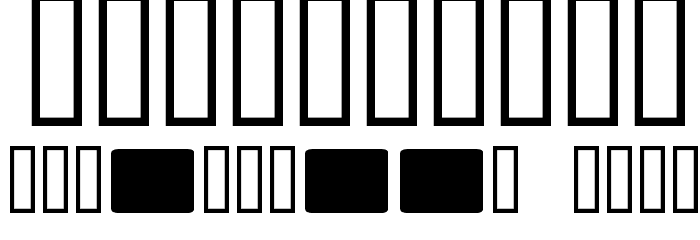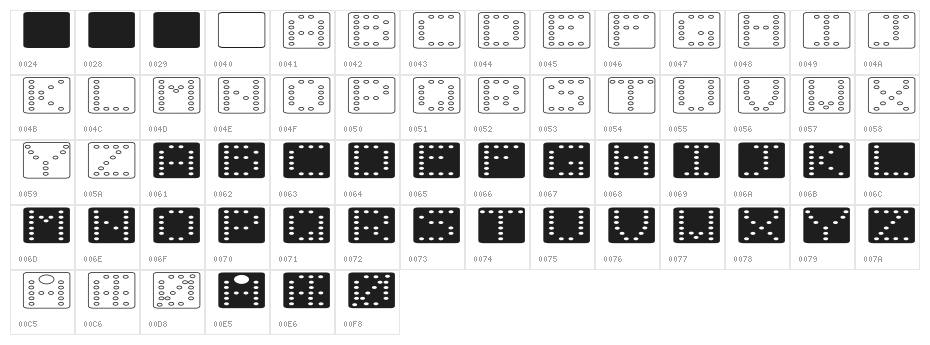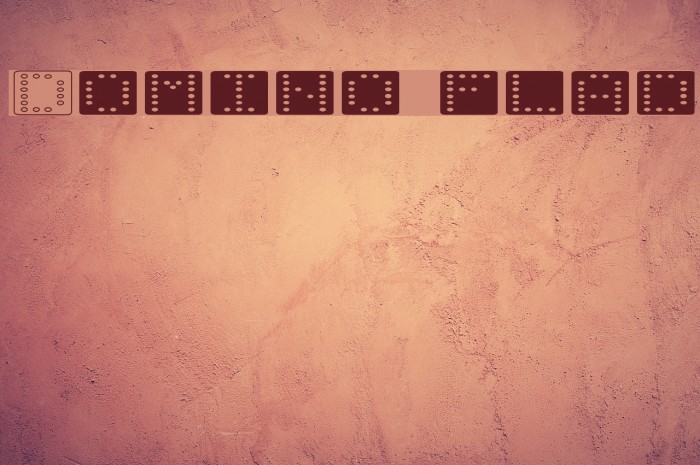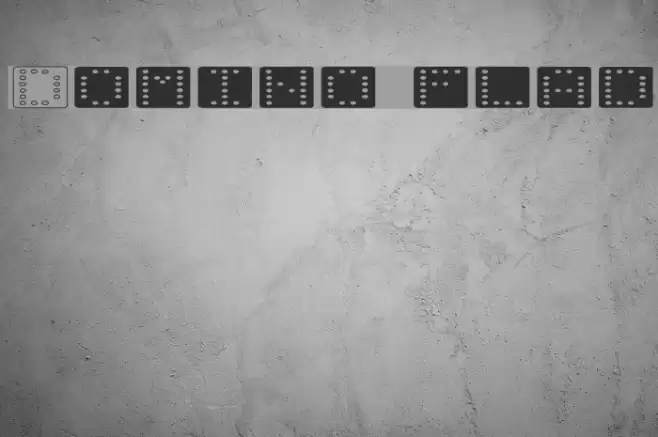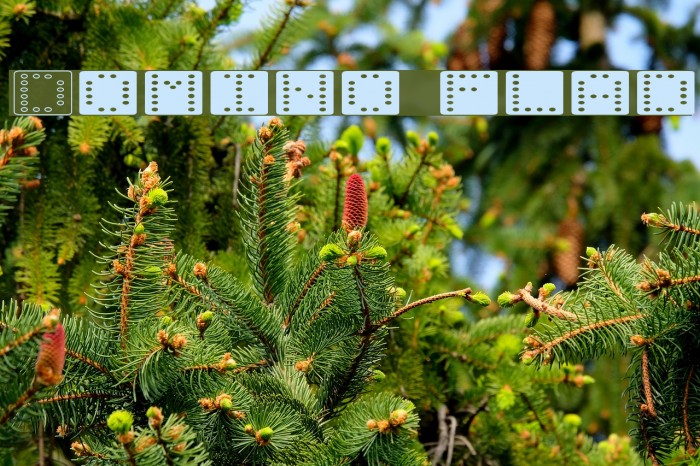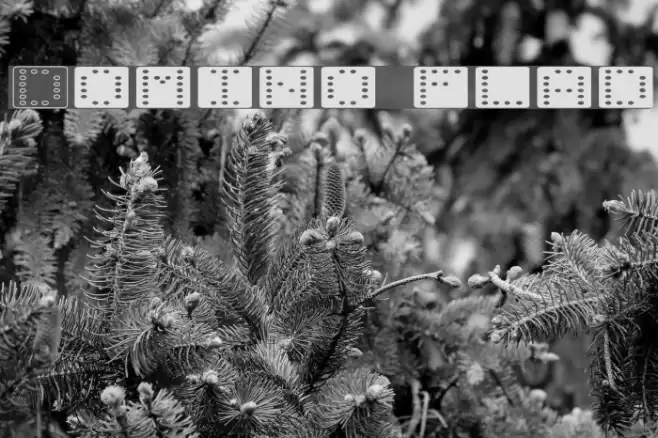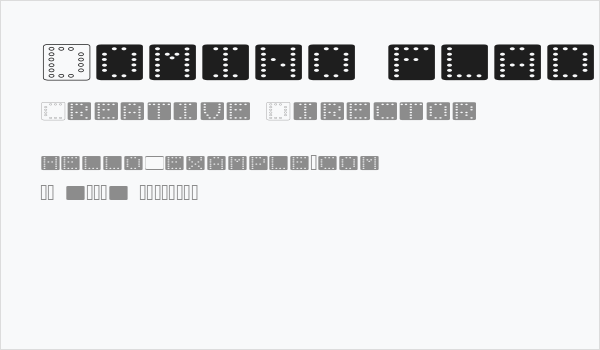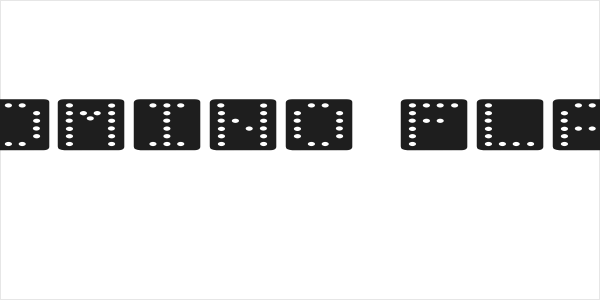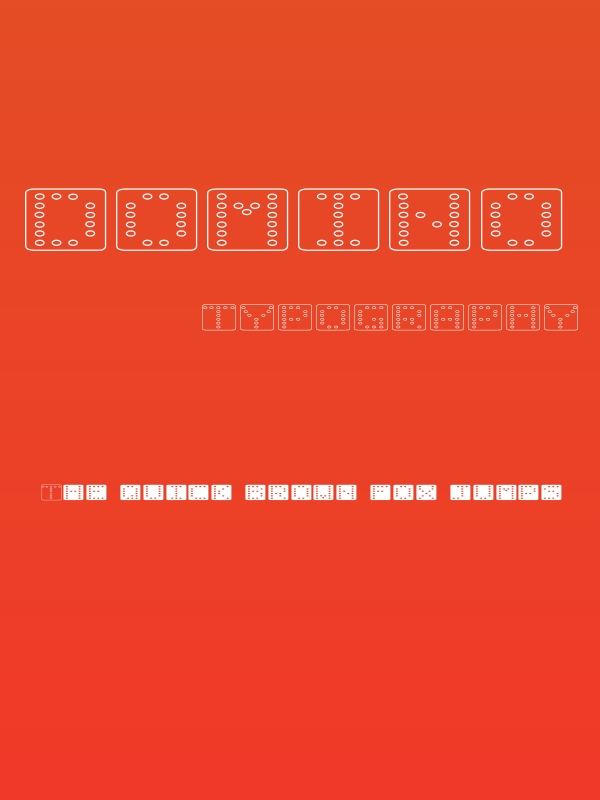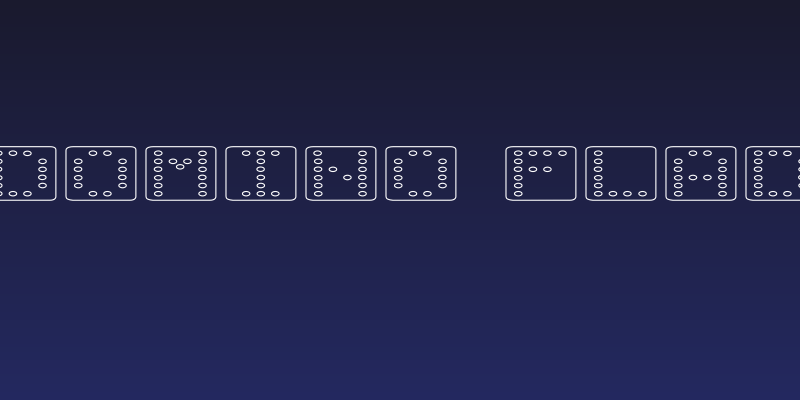
Domino flad Font
Domino flad Description
This font features a unique design where each character is styled to resemble a domino tile. The letters and numbers are enclosed within rectangular shapes, with dots arranged to mimic the pips on a domino. The design is playful and visually striking, making it ideal for creative projects. The characters are bold and have a consistent width, giving them a uniform appearance. The font's style is decorative, with a modern twist that adds a fun and engaging element to any design. The spacing between characters is normal, ensuring readability while maintaining the distinctive domino aesthetic.
| Use Case | Logos, Posters, Creative projects |
| Proposed Projects | Ideal for game-themed designs, playful branding, children's books, and creative posters. |